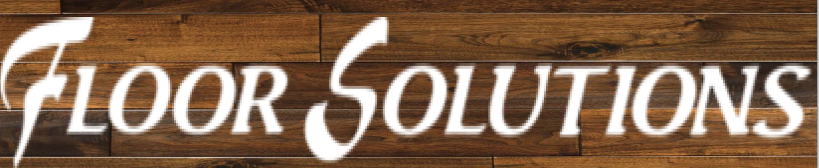
I’ve uploaded a photo here. I have been given the job to re-create this logo for a company as the previous people did not save it in the correct format so they can’t use it. They want the same font but I can’t figure it out. All the ones I’ve seen that are similar cost, and I’m almost positive they used a free one. Any help is appreciated. THANKS
That S…!
I’d look for a font similar to the serif that’s used and bust the pen tool to trace the F and S
Those funky first letters F & S are … Impuls by Tilde
And the other font used for the LOOR & OLUTIONS is … Seagull Italic originally by Bitstream but has ‘changed hands’ many times over.
There you go. So your only problem is the letter F and S.
Two options:
2- Use your graphic design skills and use the pen tool